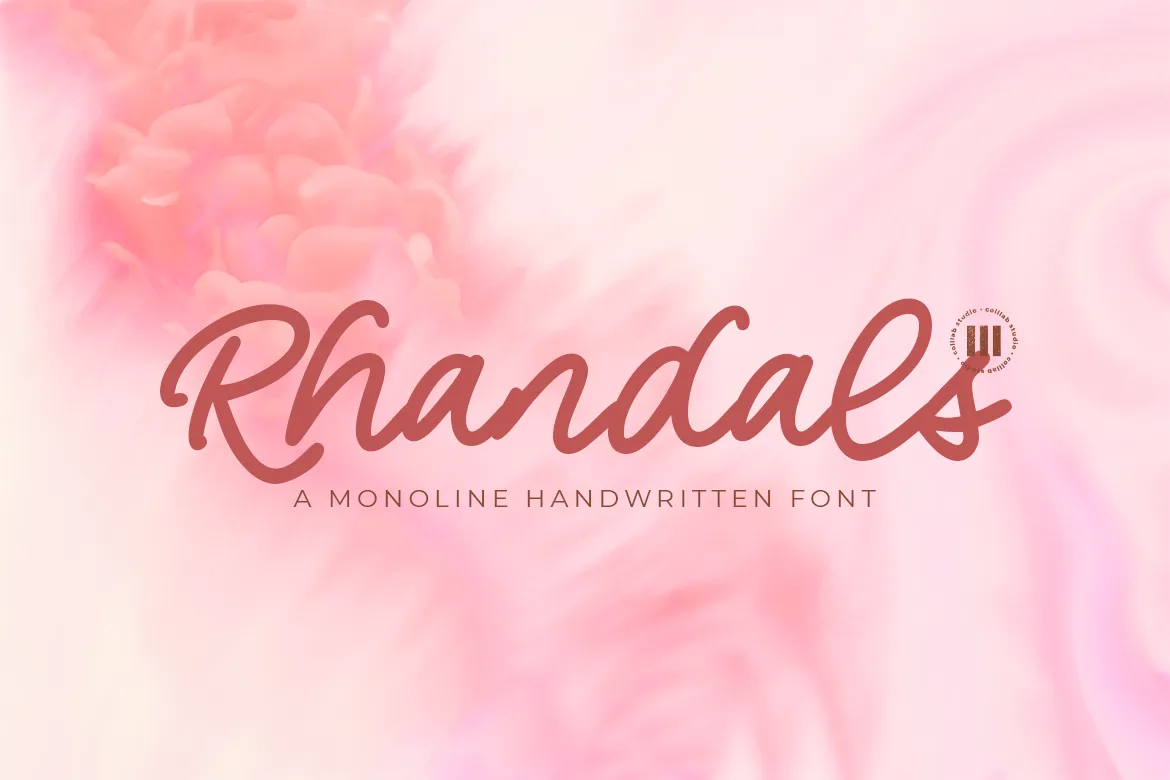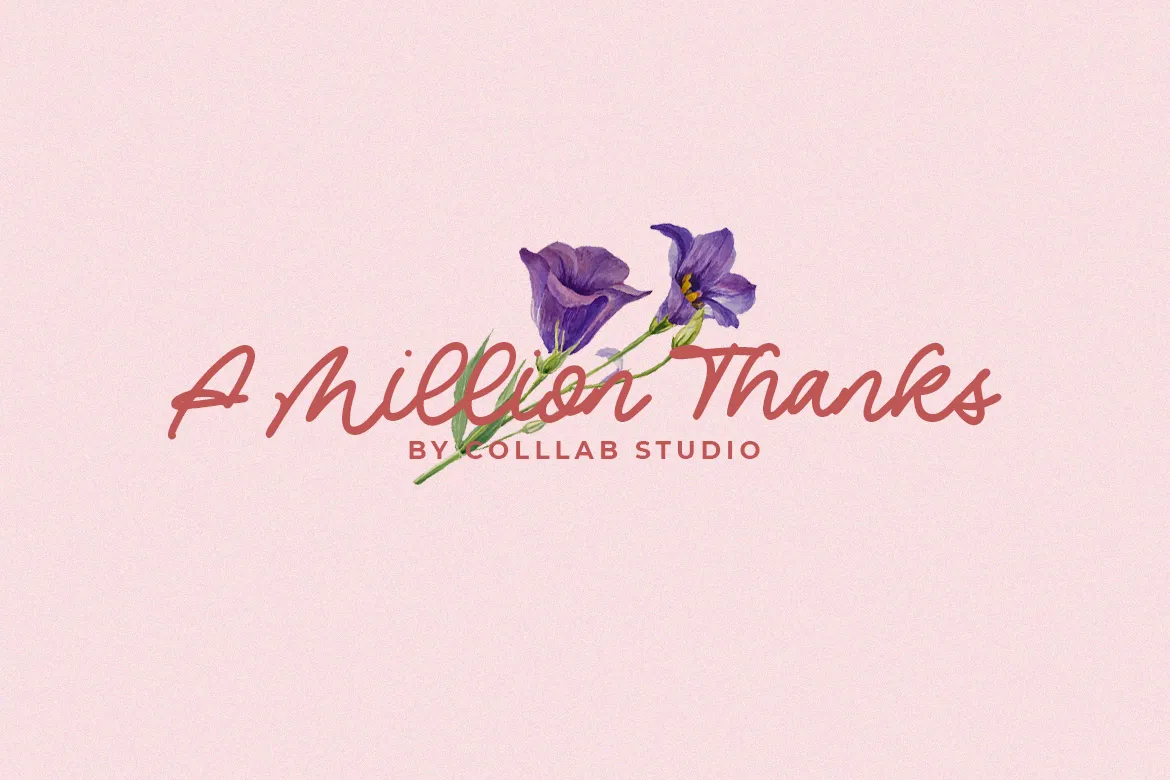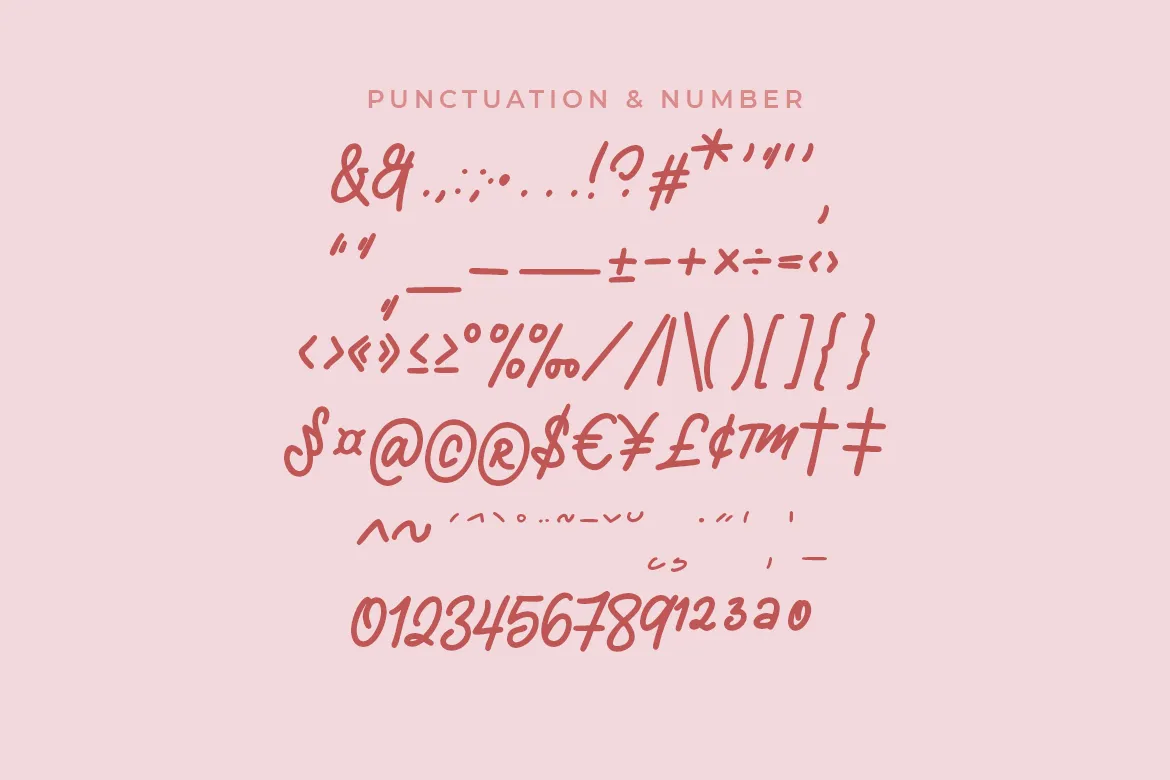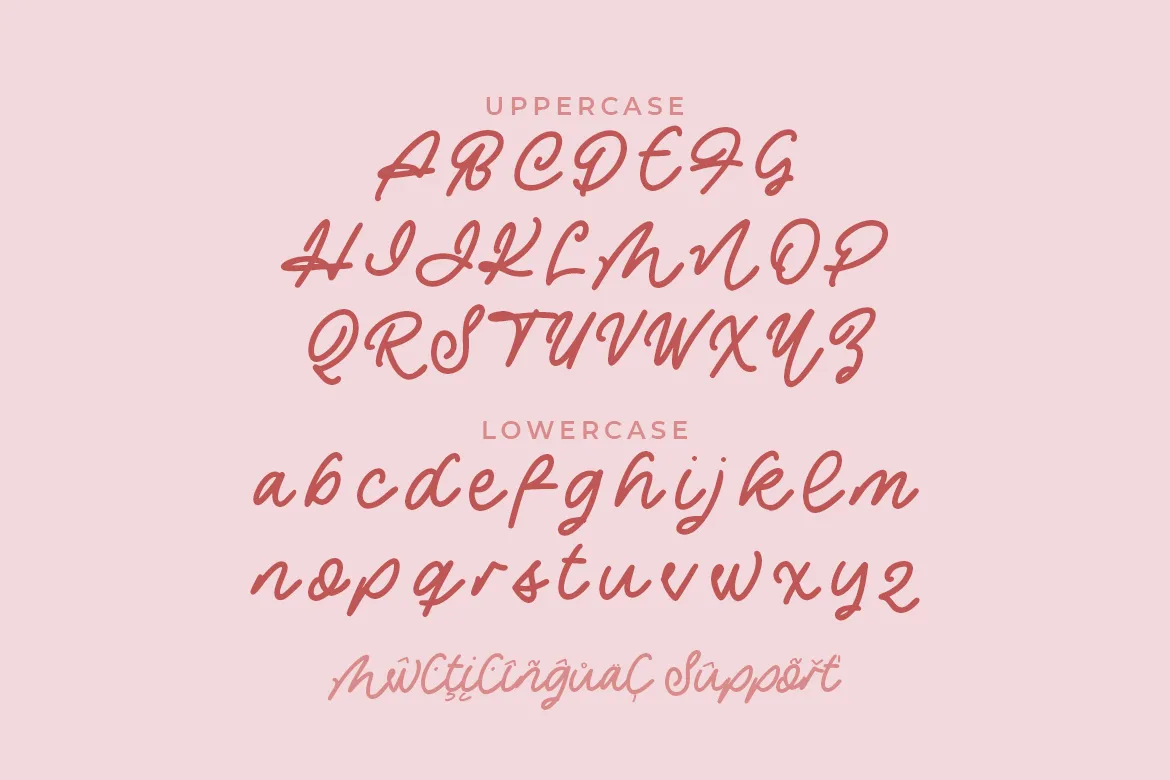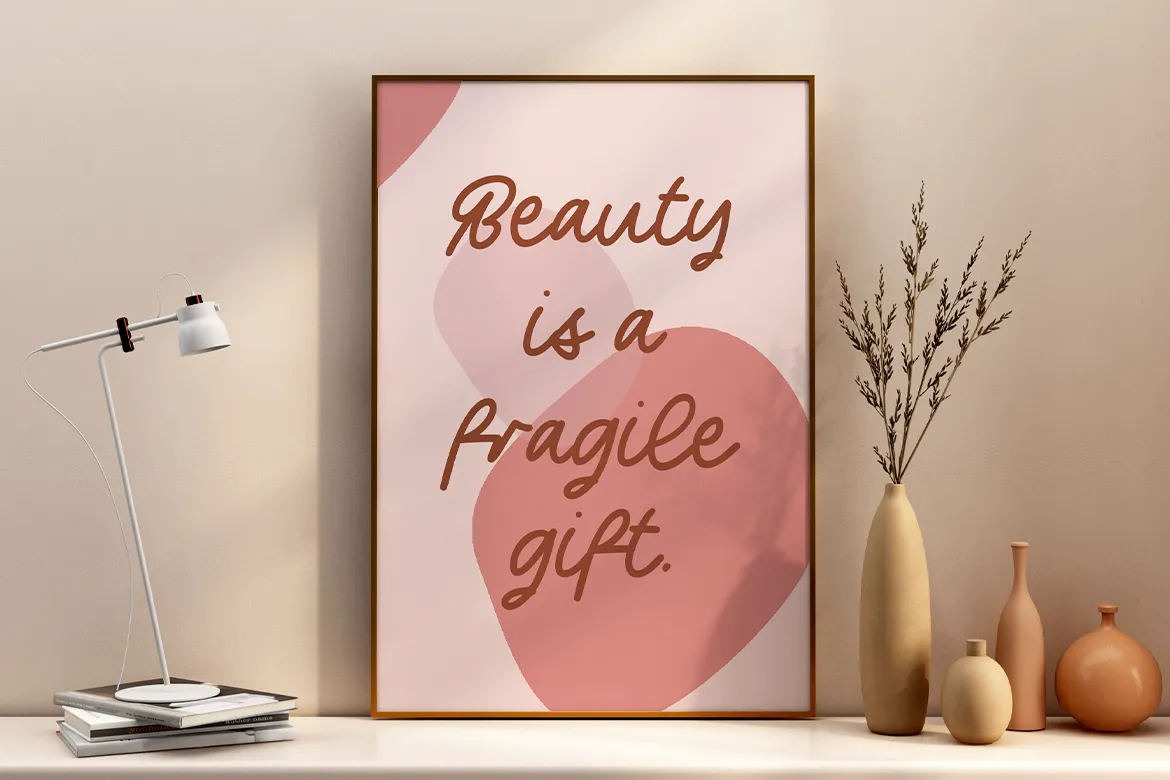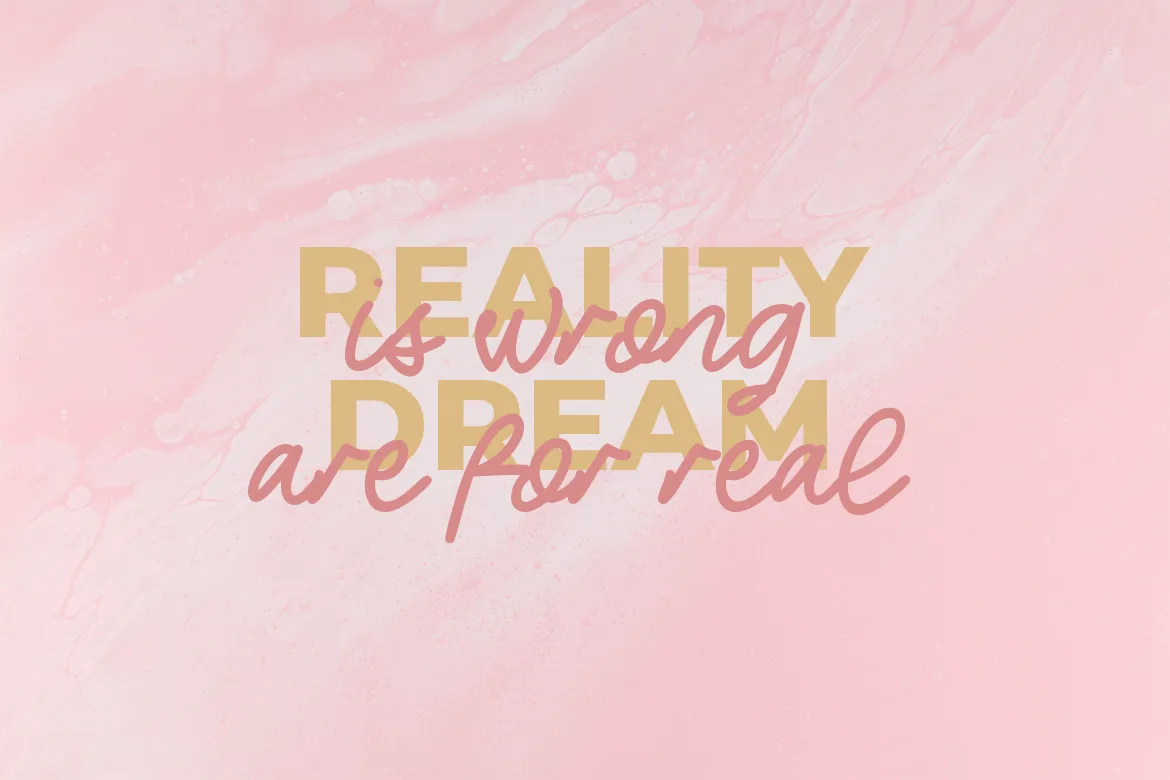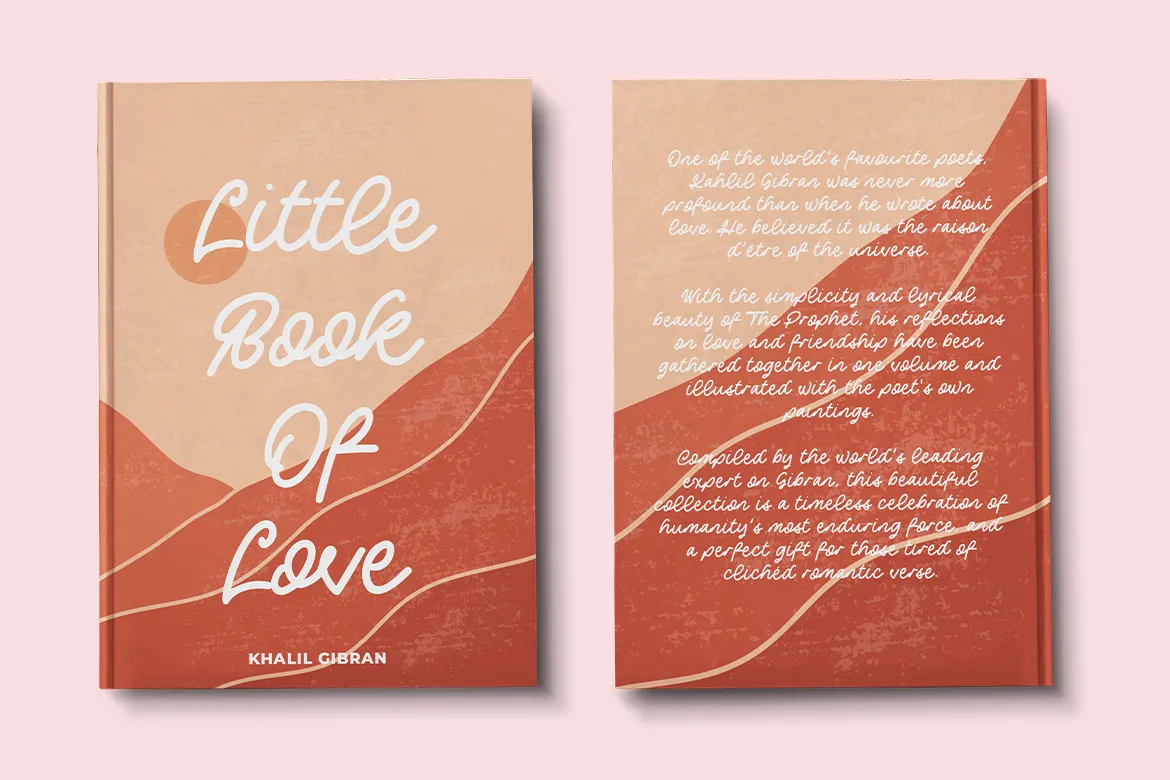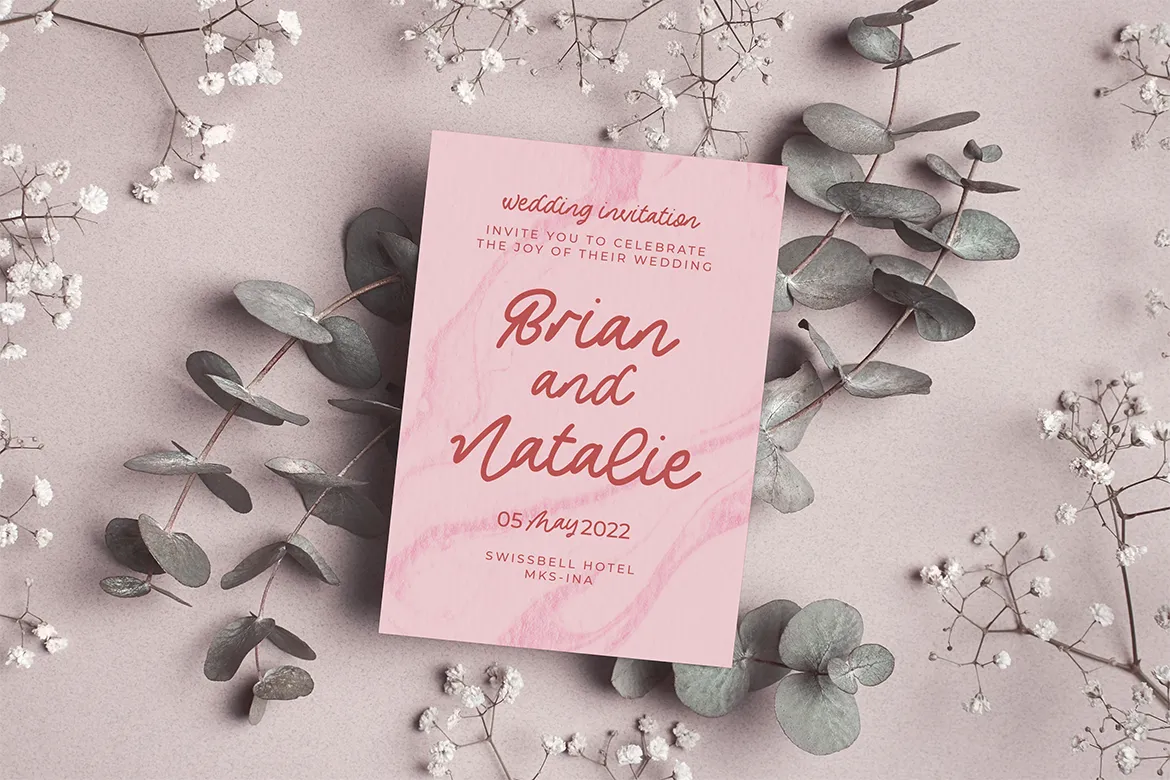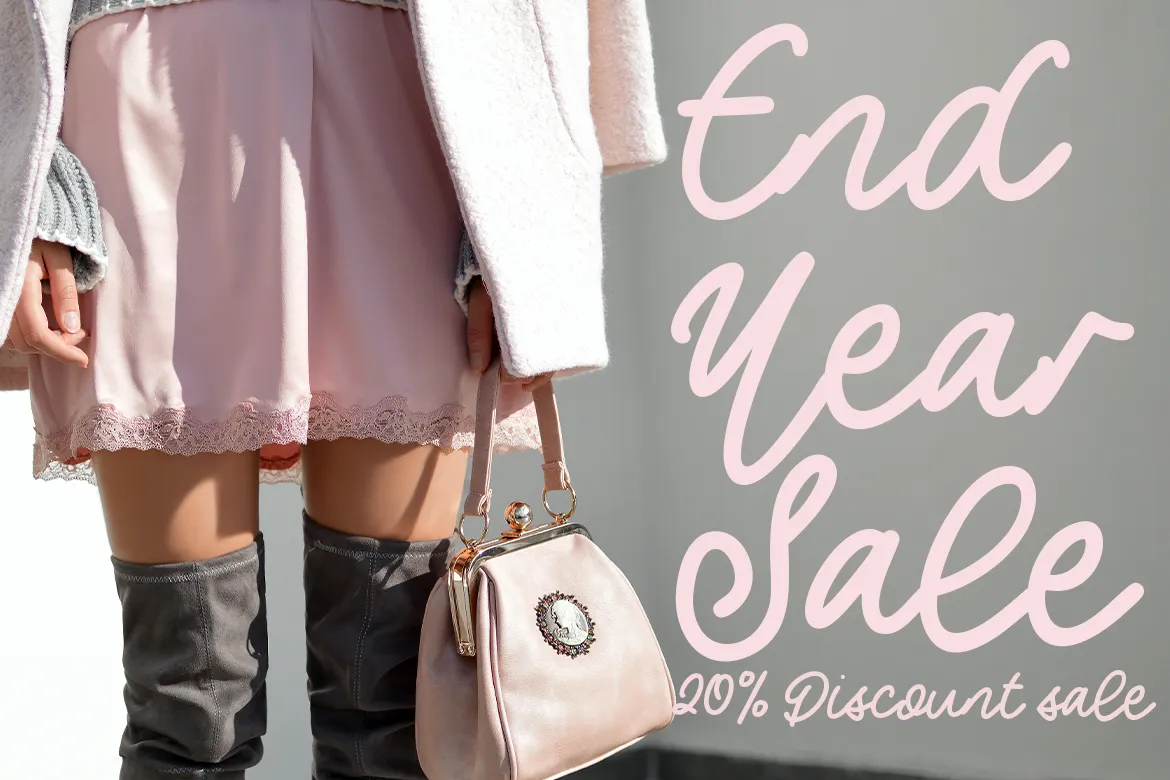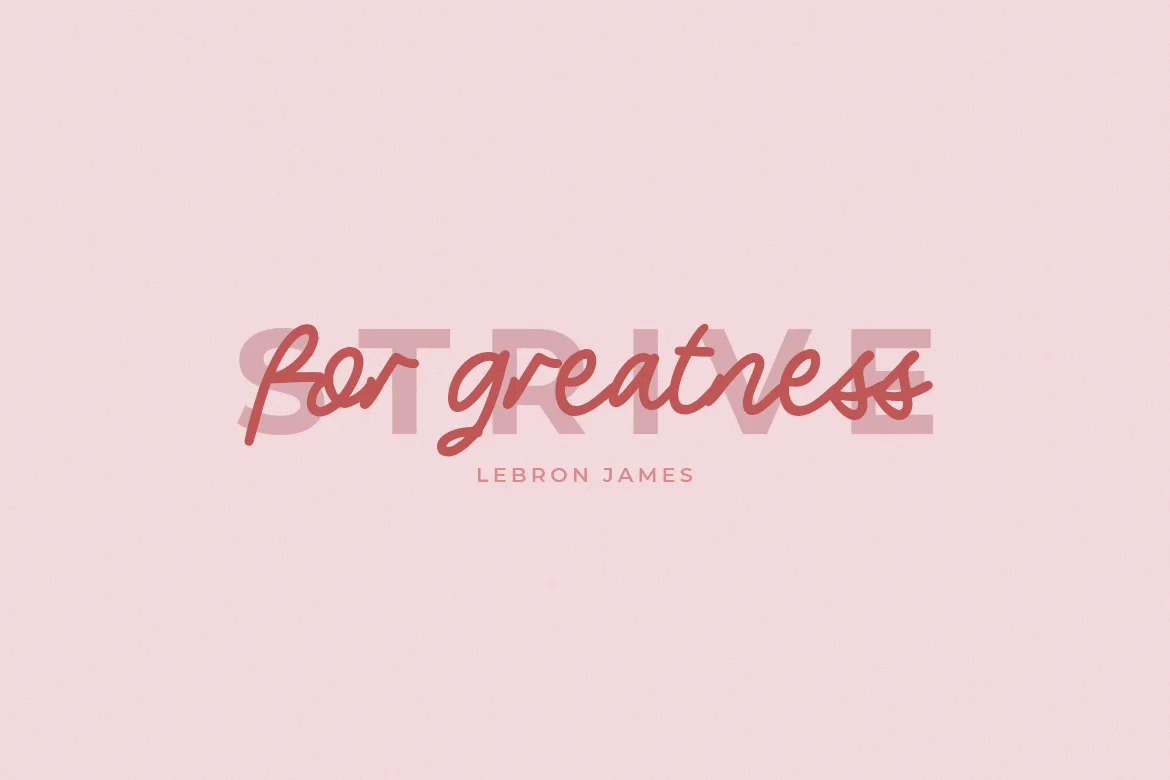
Introducing, Rhandals, A Monoline Handwritten Font, it has been carefully crafted to be easy-reading and clear in its display of text. All characters have hand drawn elements that can be used to add a little flair where needed. A gentle curve will add a certain flair to the typeface. Well-crafted rounded terminals on the letters give it a warm touch and an overall organic feel. At the same time, careful attention to detail has created subtle snap and texture in the lettering helping it to stand out from the crowd when used in displays.
Rhandals can be used for everything from posters to book covers, once you have created a standout piece of design there is no need to change your typeface as Rhandals will work within most design schemes and scenarios.
Your design will really ‘pop’ using Rhandals and with its clean lines you will look more professional than ever.